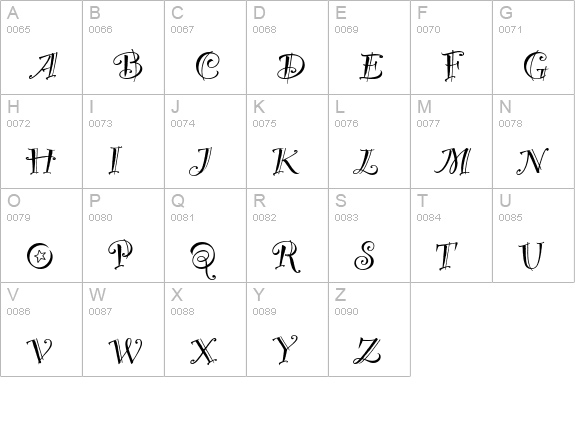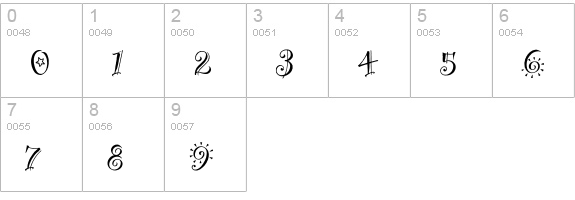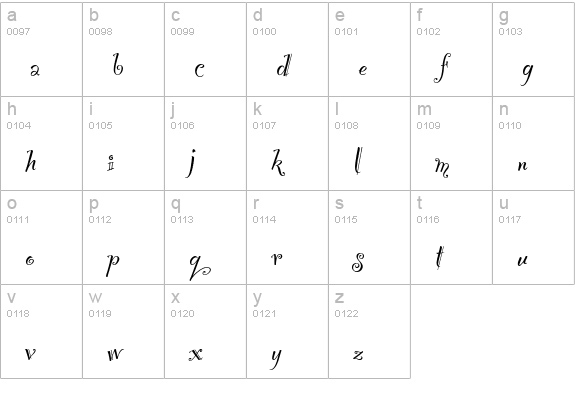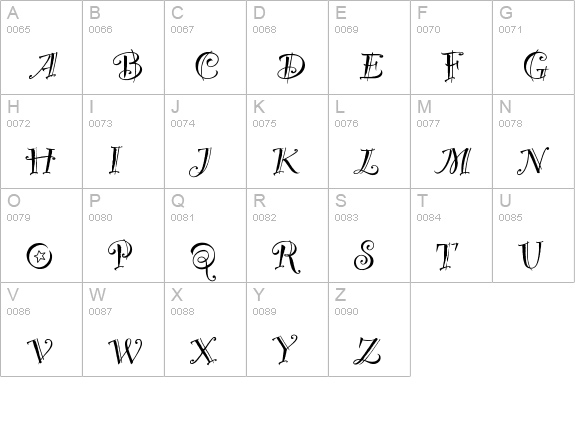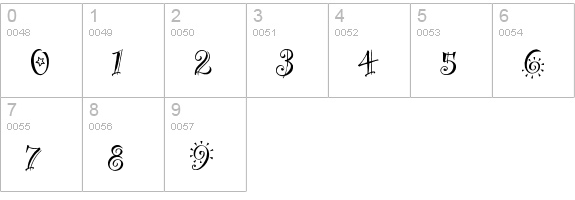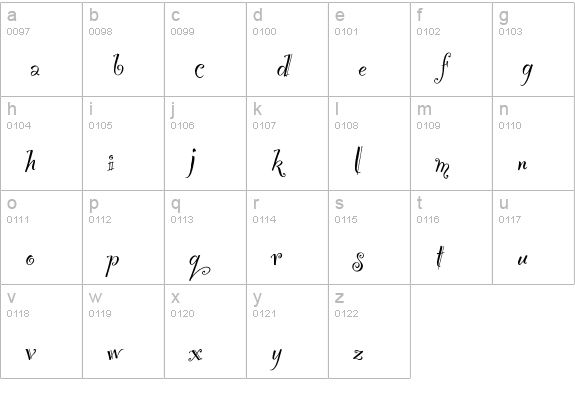
Party Font Details
Party font is a vibrant and energetic typeface that perfectly captures the spirit of celebration and festivities. With its playful and lively design, this font is the ultimate choice for any party-themed project or event. Whether you are designing invitations for a birthday party, creating posters for a music festival, or crafting decorations for a New Year's Eve bash, Party font will bring your designs to life with its dynamic and expressive letterforms. This font features a unique combination of bold and curvaceous strokes, creating a sense of movement and excitement. Each letter is meticulously crafted to exude a sense of fun and joy, making it the ideal choice for any festive occasion. From its exuberant capital letters to its charming lowercase characters, Party font is sure to make a lasting impression. What sets Party font apart is that it is not only visually stunning but also freely available to download at FontsMarket.com. This means that you can easily access this font and incorporate it into your designs without any cost. This makes Party font an incredibly valuable resource for designers, event planners, and anyone looking to add a touch of celebration to their projects. Whether you are a professional designer or an enthusiastic DIYer, Party font is a must-have in your font collection. Its versatility and boldness will make any text stand out, instantly adding a festive atmosphere to your designs. So go ahead and download Party font from FontsMarket.com today, and let the party begin!